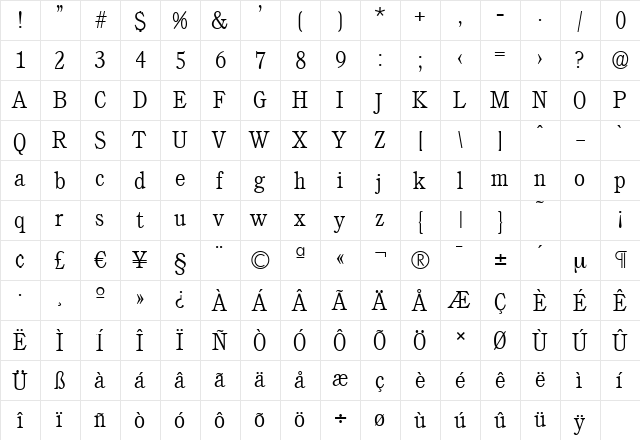
CalgarySerial-Xlight Regular
Design Context for CalgarySerial-Xlight Typeface
CalgarySerial-Xlight is a composed and adaptable typeface that performs quietly and consistently across a wide range of design contexts. Its slender proportions lend an understated elegance to any composition.